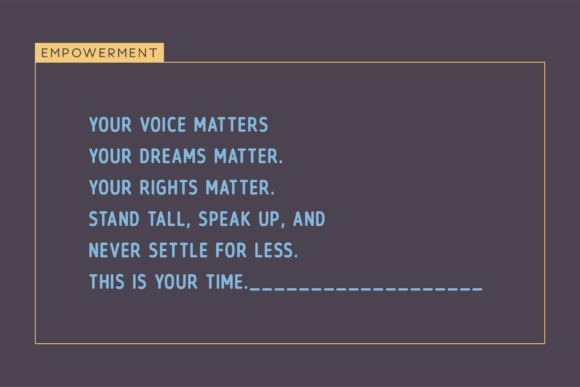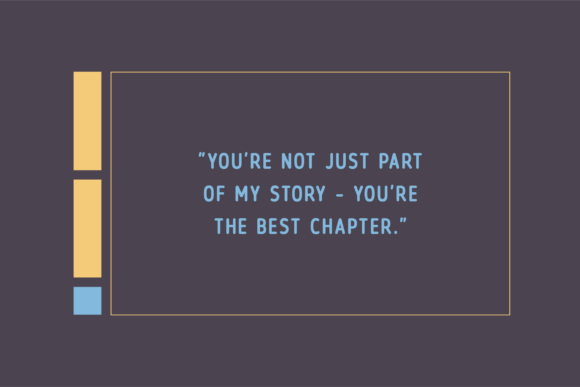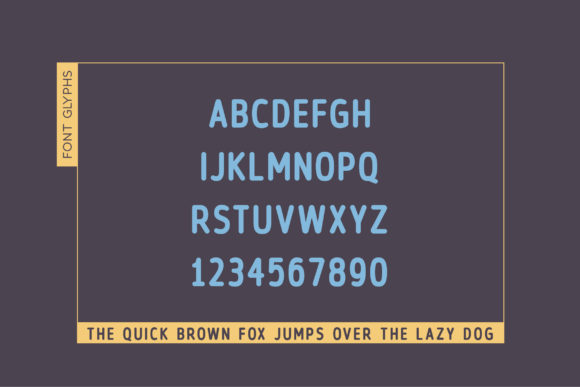
Introduction to Oceanight Font
Invoking the charm of the alluring seascape, Oceanight is an all-caps, whimsically unique typeface.
The Oceanight typeface utilizes vertical height to create an elegant, space-saving silhouette that is perfect for vertical banners, book covers, and tall social media stories This Oceanight font manages to feel substantial yet light, providing a sophisticated alternative to standard condensed typefaces.